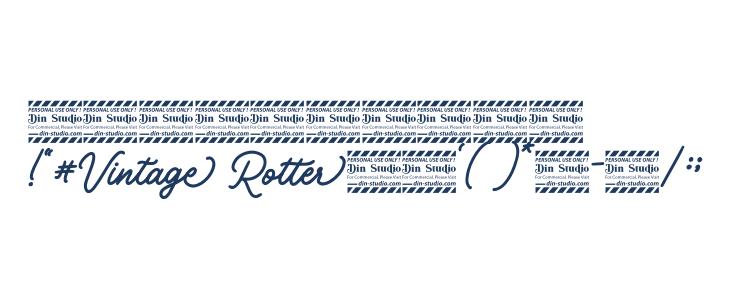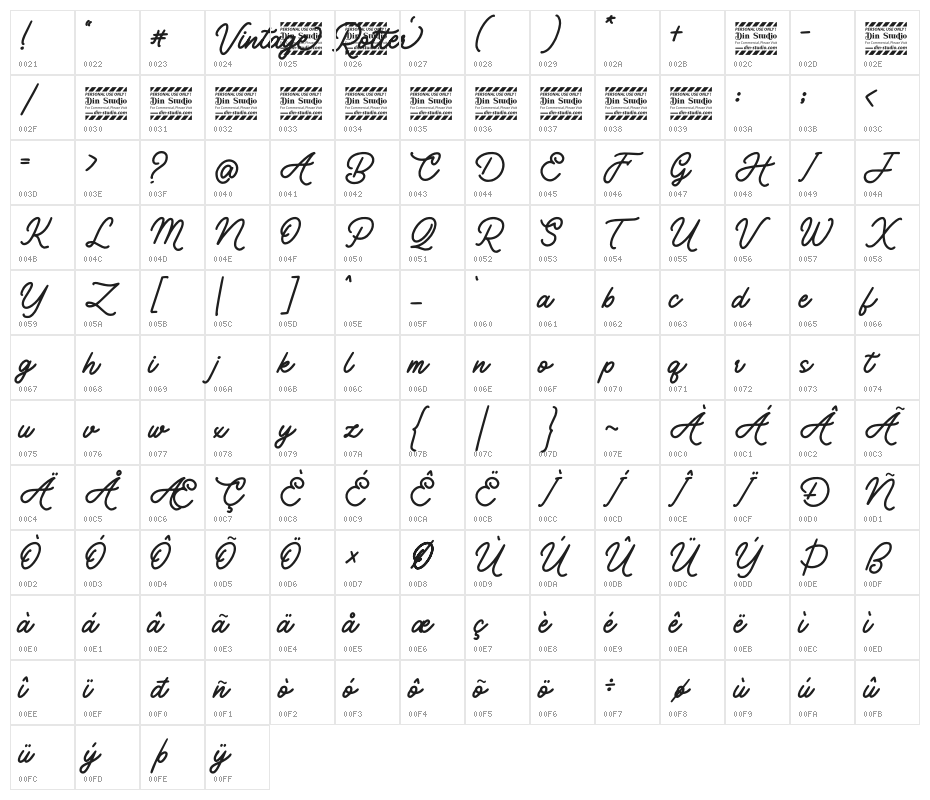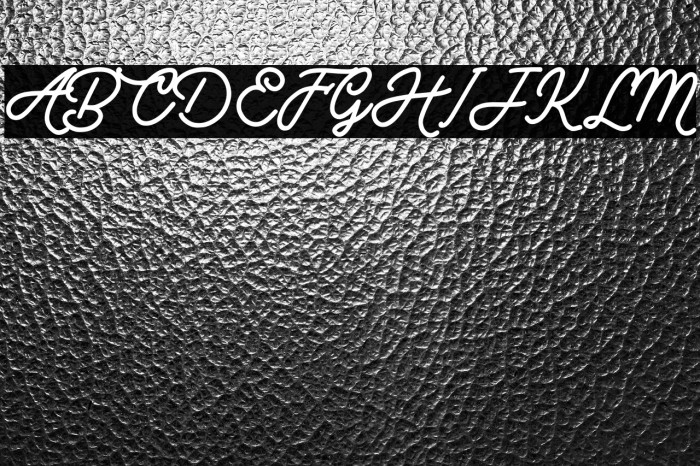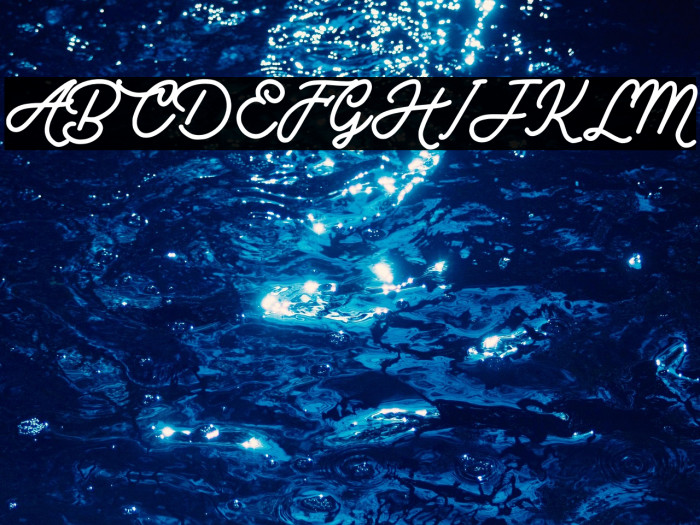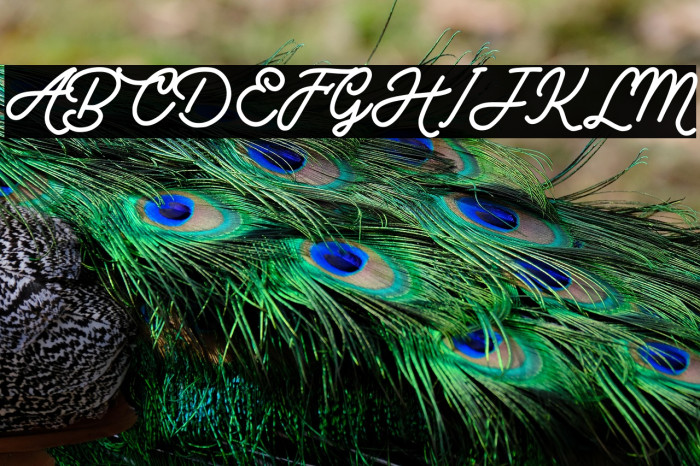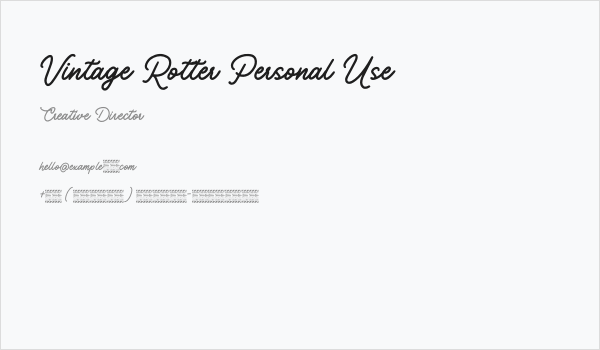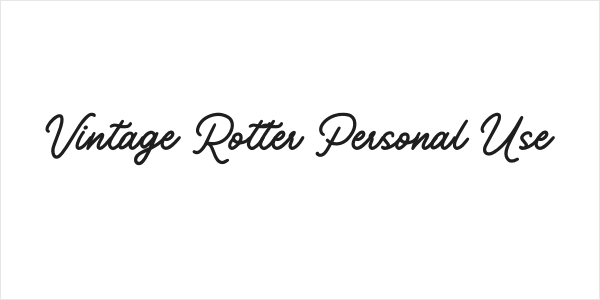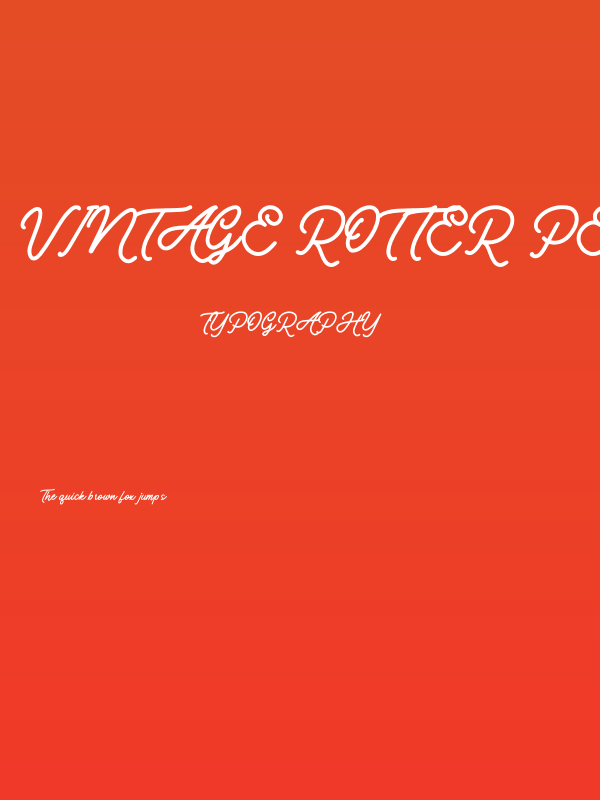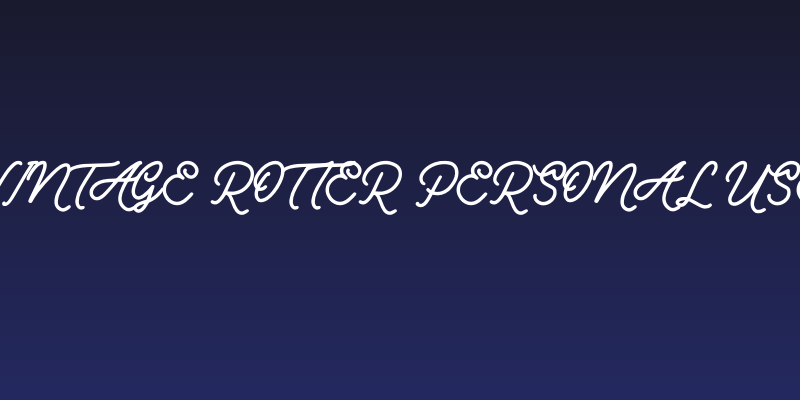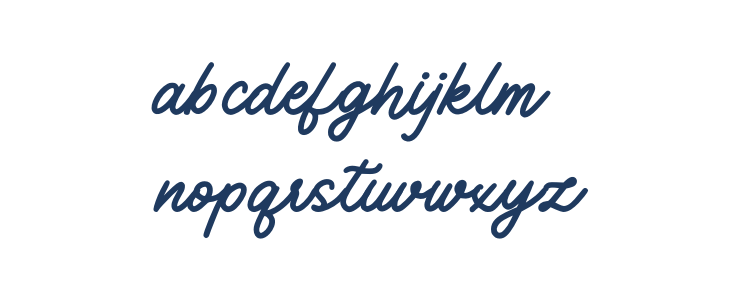
Vintage Rotter Personal Use Font
Vintage Rotter Personal Use Description
This font exudes a classic, vintage charm with its elegant script style. The uppercase letters are gracefully curved, featuring smooth, flowing lines that evoke a sense of nostalgia and sophistication. The lowercase letters maintain a consistent style, with a slightly bolder appearance that enhances readability while preserving the font's decorative nature. The numerals and special characters are designed to complement the overall aesthetic, adding a touch of flair without compromising legibility. This font is ideal for projects that require a touch of elegance and a nod to the past, such as wedding invitations, vintage-themed branding, or artistic posters.